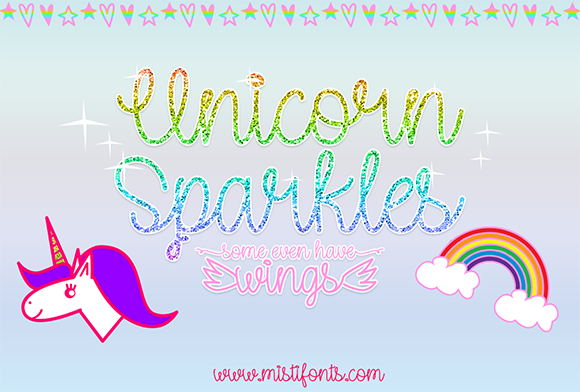
About Unicorn Sparkles Font
Unicorn Sparkles is a magical, monoline script that is perfect for a variety of projects!
SPECIAL SYMBOLS
Type * (asterisk) for the solid star
Type | (vertical bar) for the rainbow
Type (backslash) for the sparkle
Type _ (underscore) for the unicorn
Type ^ (circumflex) for the solid heart
Type (greater than) for the open heart
Type [] (brackets) for the swashes
Type () (parentheses) for the wings